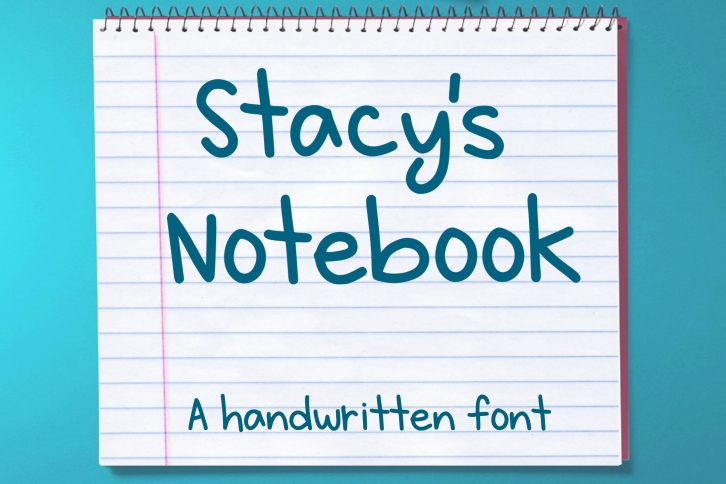
Stacys Notebook is a gorgeous font that was realeased on September 16, 2019. The font can be used in many style contexts and design environments. Perfect for invitations, magazines, websites, logos, and more! It was designed by Stacys Digital Designs and the file size is 9.30 MB. Thanks for checking out this font!